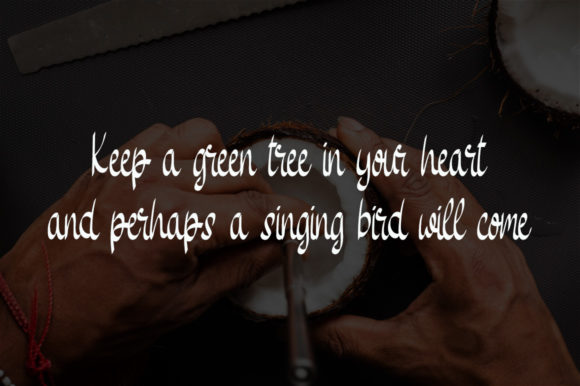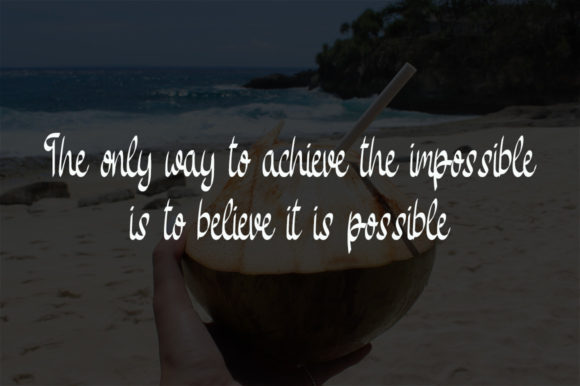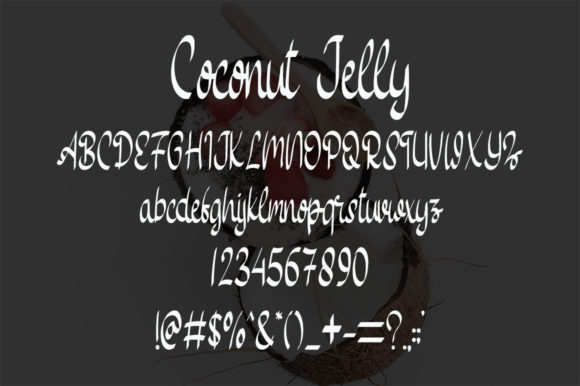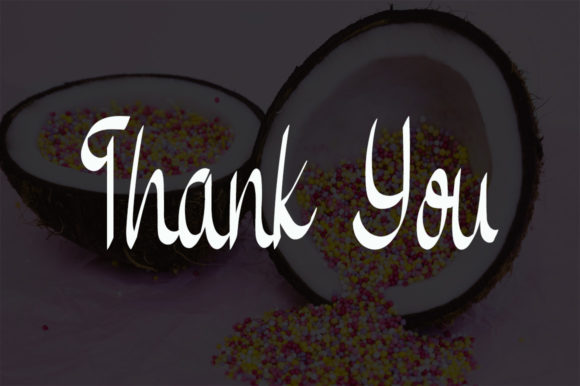
Coconut Jelly Font
About Coconut Jelly Font
Coconut Jelly is an fancy handwritten font, designed to become a top choice. It maintains its classy calligraphic influences while feeling contemporary and fresh. Fall in love with it and bring your projects to the highest levels!